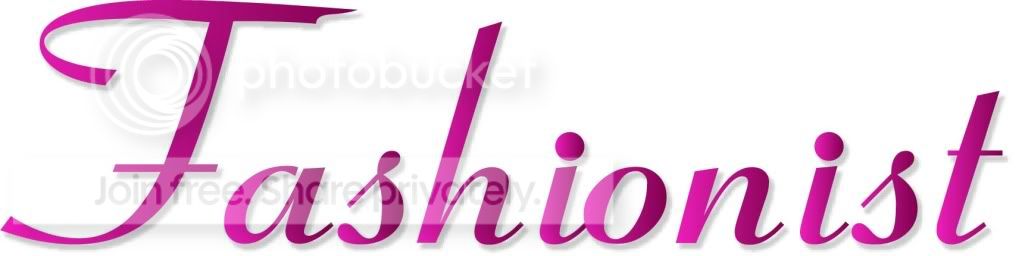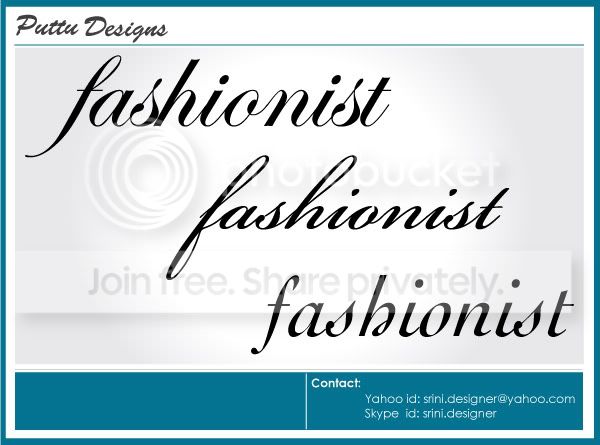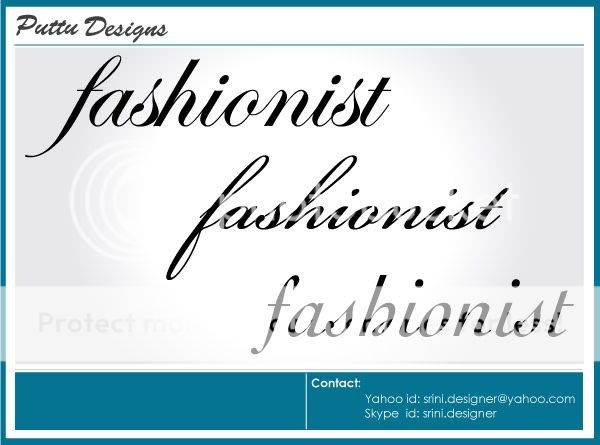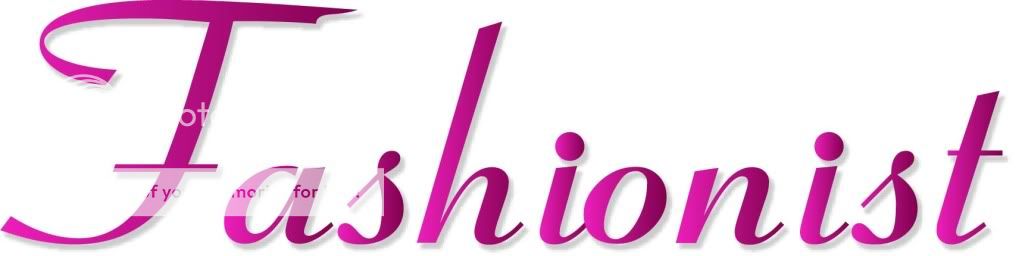
Here's my try, hope you like it :)
Comments are appreciated
here is my entry feedback appreciated....
I really like your design overall, but not for this particular site. It looks cool though, like an event or a show.
PSpro, I like the creativity of your design, but it doesn't really fit the look we're going for. Your logo would be great for an event or a product. Maybe if you guys see this little clip of the site, you'll have a better idea.
Could you please feedback anything on my post ?
This my entry.
or this
kratos961, it's too fancy. Imagine if you have to print the logo all over a cardboard shipping box. It wouldn't come out right.
some feedback on my designs ?
My try :